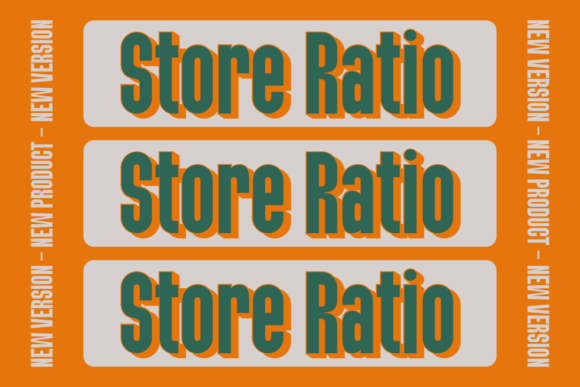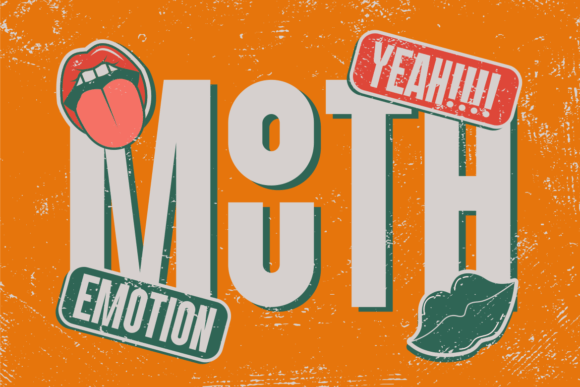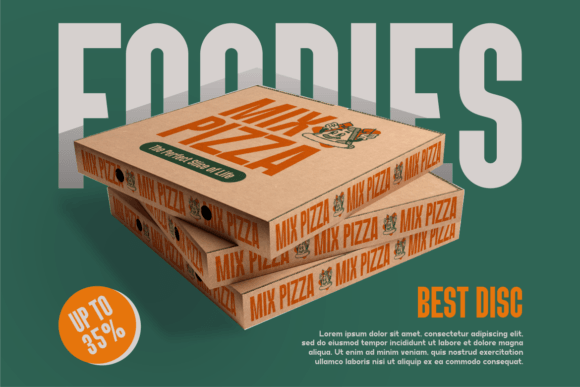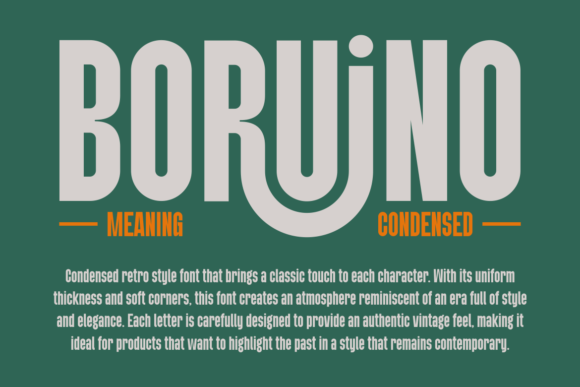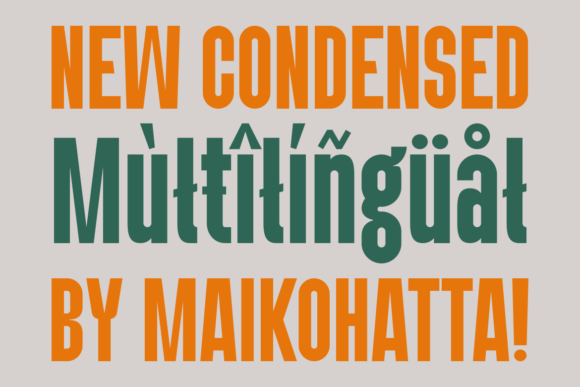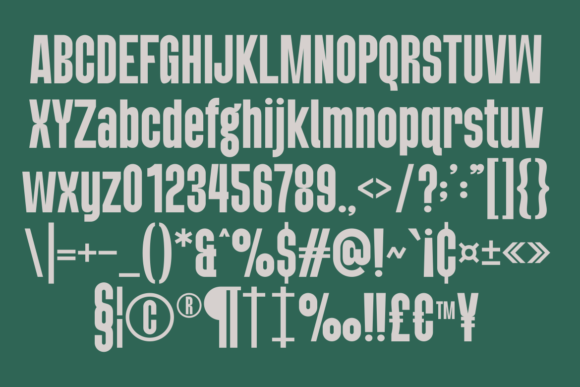
Introducing Boruino: The Modern Condensed Font You Need
I’ll never forget the struggle I faced while working on a branding project for a trendy coffee shop. My client wanted a font that was modern, elegant, and could fit a lot of text on a small menu board without looking cluttered. I tried numerous fonts, but none seemed to fit the bill. That was until I stumbled upon a beautiful condensed font that changed the game. Today, I’m excited to introduce you to Boruino – our new modern condensed font that’s about to become your go-to for various design projects.
What is a Condensed Font?
A condensed font, like Boruino, is characterized by narrower or slimmer letterforms compared to regular or wide fonts. These fonts are often used in graphic designs, print materials, and other media because they offer distinct advantages and unique characteristics. They’re perfect for saving space while maintaining readability, making them ideal for menus, posters, headlines, and more.
Boruino Font: The Good, the Bad, and the Quirky
What I Love About Boruino ✨
- ✅ Modern and Elegant: Boruino boasts a sleek and contemporary design that will elevate your projects.
- ✅ Highly Legible: Despite being condensed, Boruino remains highly readable, even at smaller sizes.
- ✅ OpenType Features: Boruino comes with a range of OpenType features, including stylistic alternates and glyphs, giving you more creative control.
- ✅ Versatile: Use Boruino for a variety of projects, from branding and advertising to packaging and editorial design.
- ⚠️ Limited Use in Body Text: While Boruino is legible, it’s not ideal for long body text. It’s best used for headlines, titles, or short paragraphs.
- ⚠️ Some Characters May Require Adjustment: Depending on your design, you might need to adjust the spacing or kerning of certain characters for optimal results.
The Story Behind Boruino
Boruino was inspired by the modern urban landscape and the need for clean, elegant typography. Our design team wanted to create a font that would not only look great but also offer flexibility and creativity. After months of research and refinement, Boruino was born – a font that embodies the perfect balance of style, legibility, and versatility.
Q: What is the best use for Boruino?
A: Boruino is ideal for headlines, titles, menus, posters, and any project where you need a modern, condensed font.
Q: Does Boruino support OpenType features?
A: Yes, Boruino comes with a range of OpenType features, including stylistic alternates and glyphs.